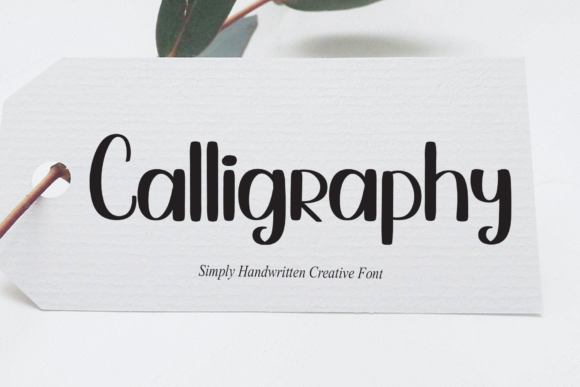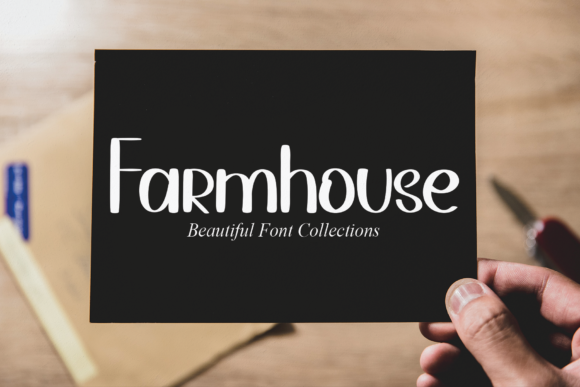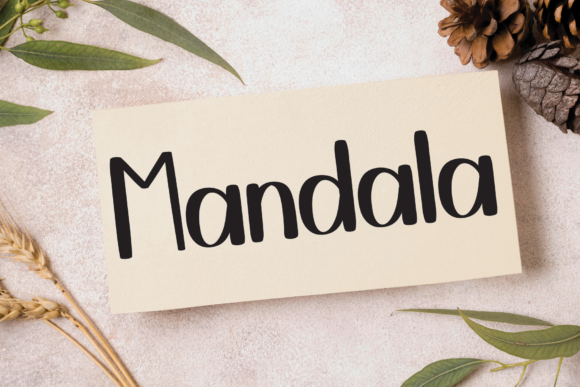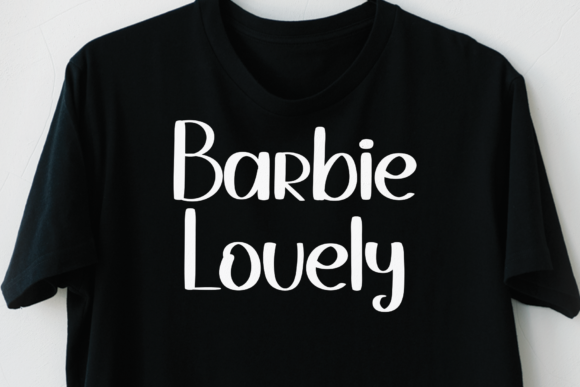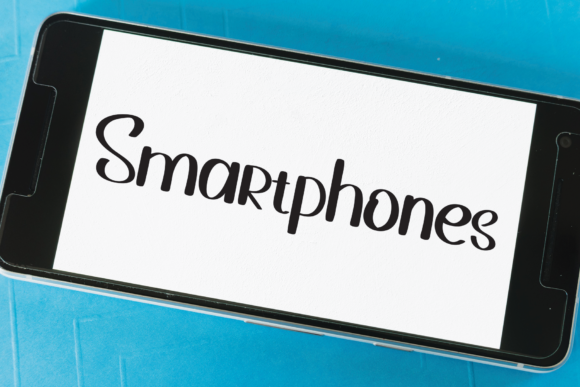
Calligraphy Font
About Calligraphy Font
Calligraphy is a sweet handwritten font that was crafted with great care to produce the expected results. This font can be used to write various kinds of products according to their individual needs.